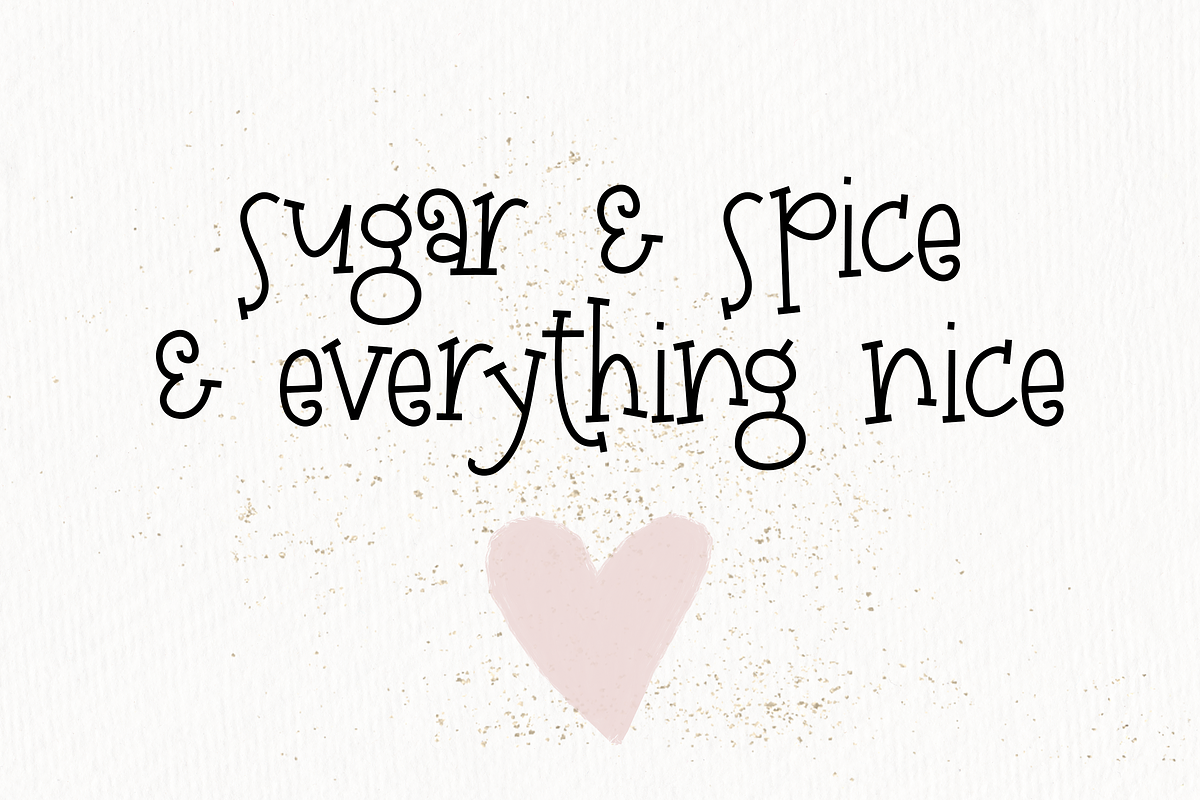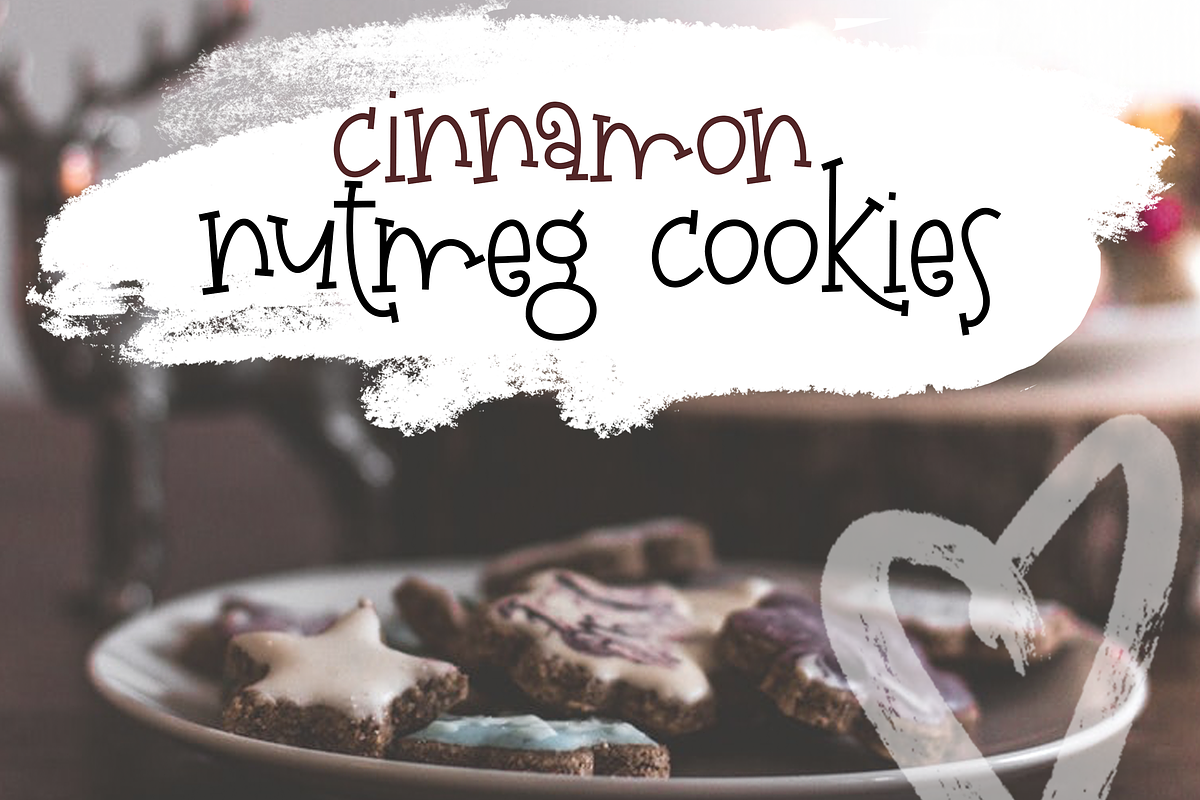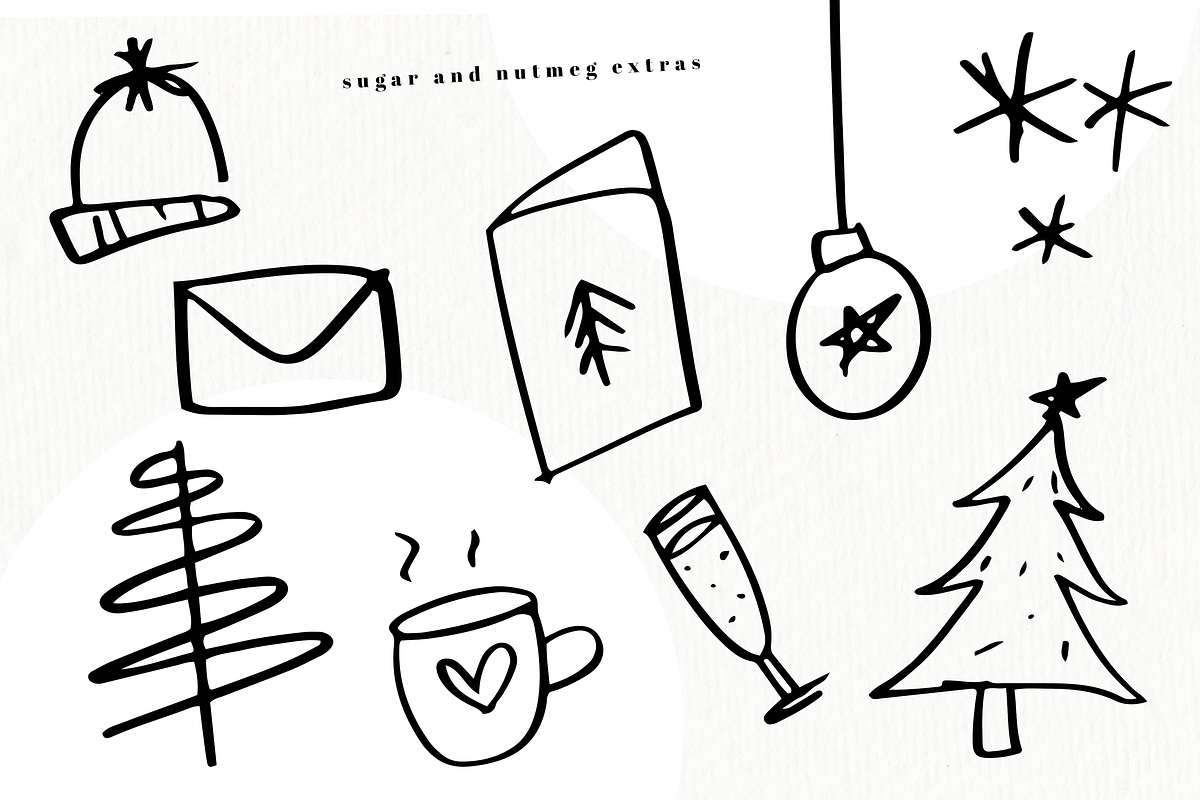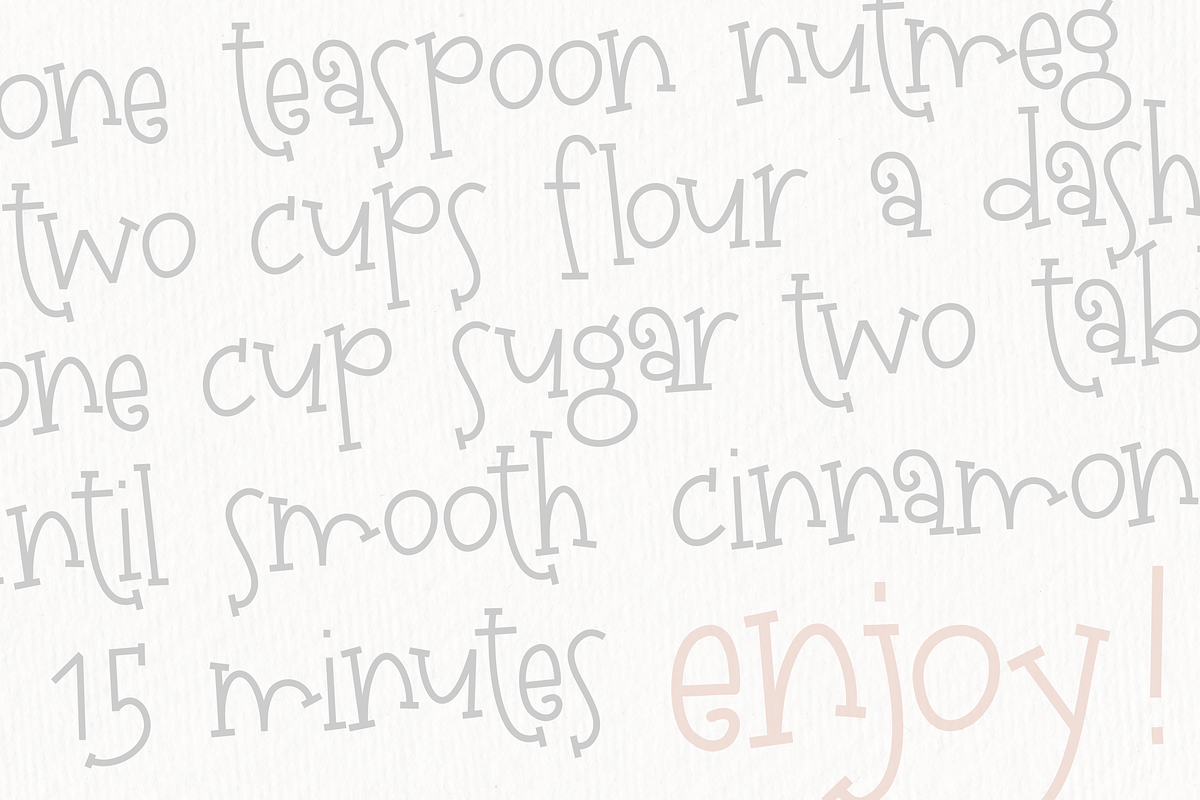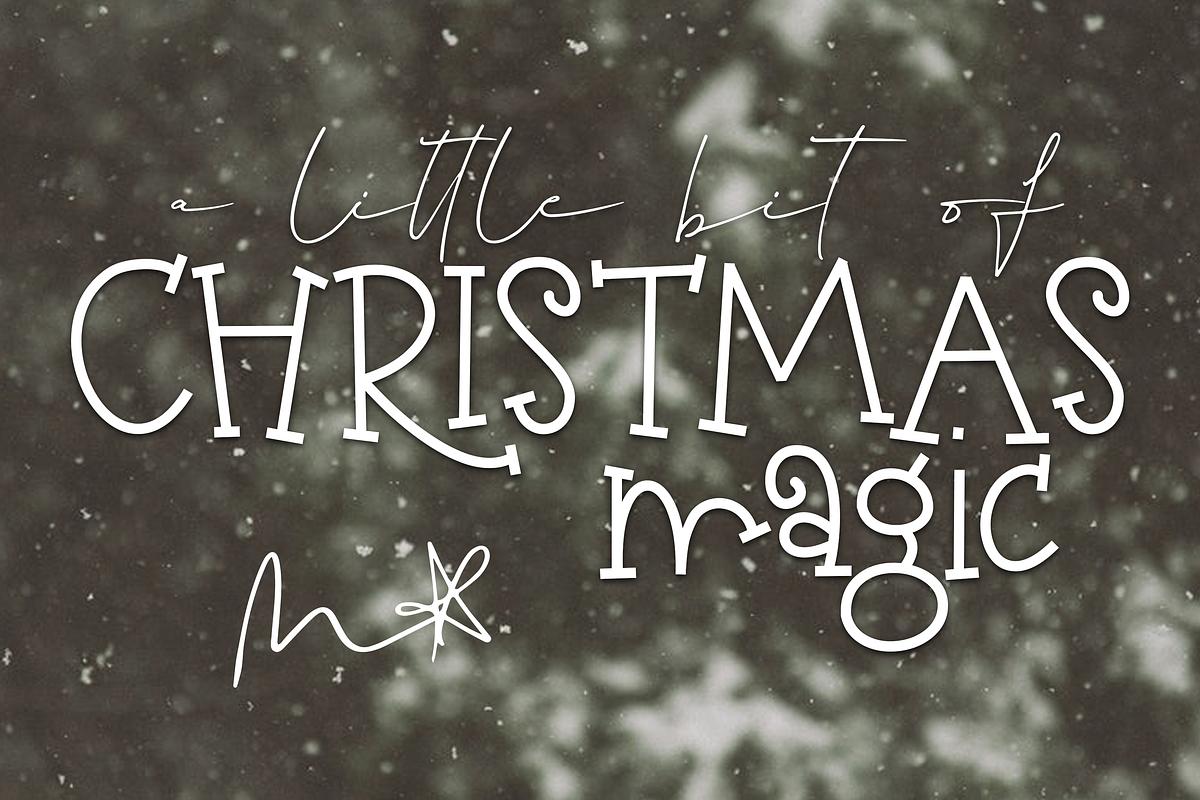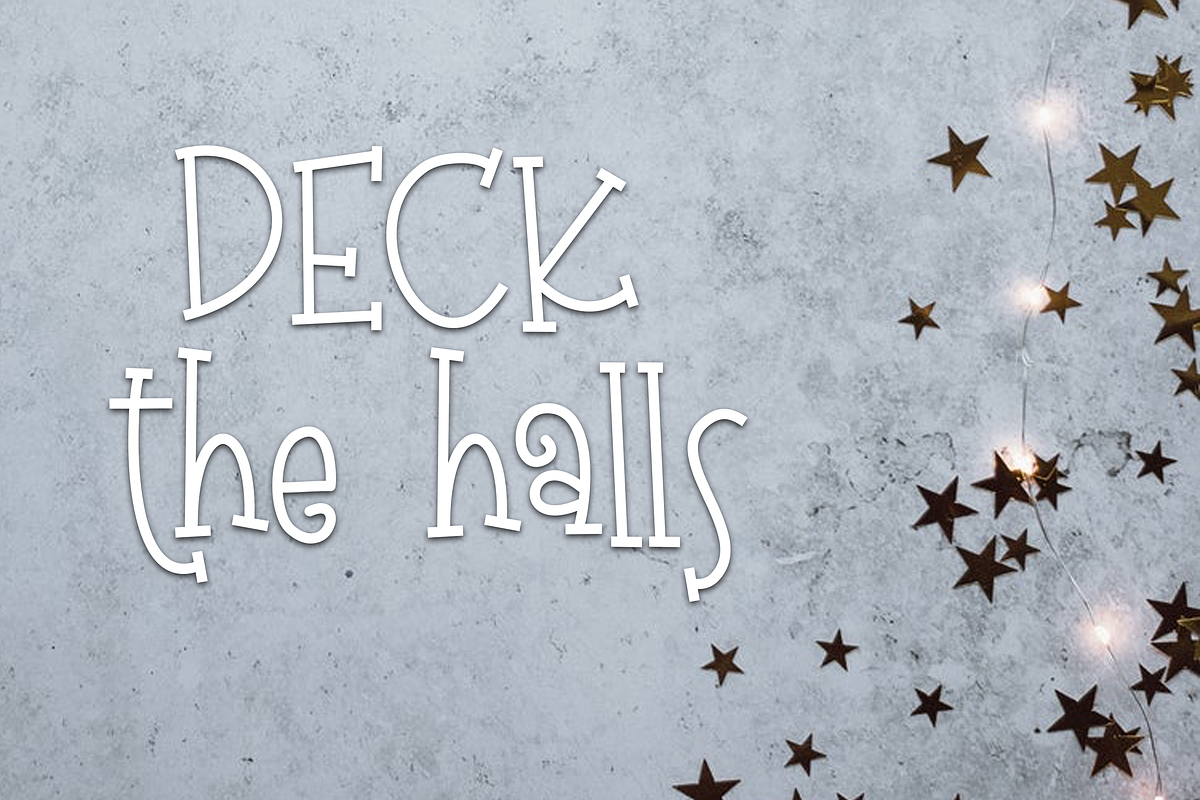
Sugar and Nutmeg - Handwritten Font
Sugar and Nutmeg is a fun handwritten font.
It works perfect for holiday and christmas designs.
This font also includes:
Sugar and Nutmeg Extras is a christmas doodle font.
The doodles are accessible by using the CAPITAL letters.
This font does include accent characters